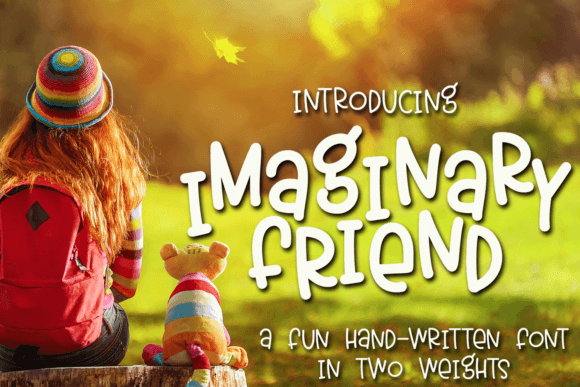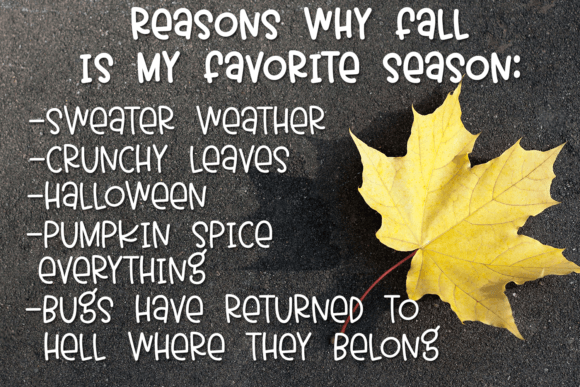
The Perfect Companion for Your Creative Projects
Have you ever stared at a blank page or screen, feeling stuck and unsure of how to bring your design idea to life? That’s when the magic happens – a spark of inspiration strikes, and your imagination runs wild. For many designers, this moment is the starting point for something truly special. And that’s exactly where the Imaginary Friend Font comes in – a fun and friendly handwritten font that’s ready to be your trusted companion.
This charming font is designed to add a personal touch to any design project, making it the perfect choice for artisanal crafts, logos, digital planners, and more. With its unique charm and versatility, the Imaginary Friend Font is an invaluable asset for designers looking to create standout designs that capture attention and inspire emotion.
Key Features of Imaginary Friend Font
- Font Family: Imaginary Friend is a sans-serif font family that includes 6 styles: Thin, Light, Regular, Medium, Bold, and Black.
- Size: Supports a wide range of font sizes, from 8pt to 120pt, making it suitable for various design applications.
- Resolution: Optimized for high-resolution displays, with clear and crisp typography at resolutions up to 300 DPI.
- Unique Characteristics: Imaginary Friend features a unique blend of modern and playful design elements, with subtle rounded edges and a friendly, approachable feel.
Imaginary Friend Font Review
Overall, I think the Imaginary Friend Font is a unique and creative addition to any design project. ✨ The font’s playful, whimsical feel is perfect for children’s books, fantasy novels, or any project that needs a touch of magic. The font’s irregular shapes and flourishes add a sense of personality to the text, making it stand out from more traditional fonts.
Here are some specific features that I like about the Imaginary Friend Font:
- ✨ Unconventional design that adds visual interest to text
- ✨ Perfect for projects that need a touch of whimsy or fantasy
- ✨ Great for use in illustrations or graphic novels
- ⚠️ The font may not be suitable for projects that require a more formal or serious tone
- ⚠️ The font’s irregular shapes may make it difficult to read for some users, particularly those with visual impairments
Overall, I think the Imaginary Friend Font is a great addition to any designer’s toolkit, but it’s essential to consider its limitations and use it thoughtfully in your projects.
Tips for Getting the Most Out of Imaginary Friend Font
Use the Imaginary Friend Font to create whimsical and playful designs for children’s books, greeting cards, and other creative projects.
Experiment with different font sizes and colors to add emphasis and visual interest to your designs.
Combine the Imaginary Friend Font with other creative elements, such as illustrations and graphics, to create unique and engaging designs.
The Imaginary Friend Font is ideal for:
Children’s books and educational materials
Greeting cards and party invitations
Advertising and marketing materials for family-friendly products
Other creative projects that require a playful and imaginative tone
Alternatives to Imaginary Friend Font
Imaginary Friend Font is a popular font known for its playful and whimsical nature. However, designers may be looking for alternative fonts that offer similar qualities or different characteristics. Here are a few options to consider:
Great Vibes is a handwritten font that exudes a carefree and friendly atmosphere. It is perfect for creating a laid-back and approachable tone in designs such as invitations, menus, and advertisements. Great Vibes is similar to Imaginary Friend Font in its playful and whimsical nature, but it has a more relaxed and casual feel.
Q: What is the recommended font size and line height for optimal readability with Imaginary Friend Font?
For optimal readability, we recommend using a font size between 12pt and 18pt, with a line height of at least 1.5 times the font size. This will provide a clear and comfortable reading experience for your users.